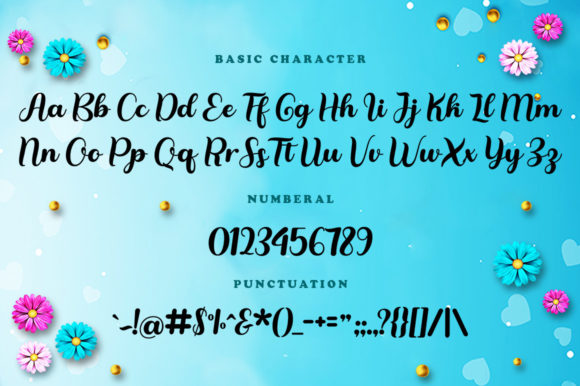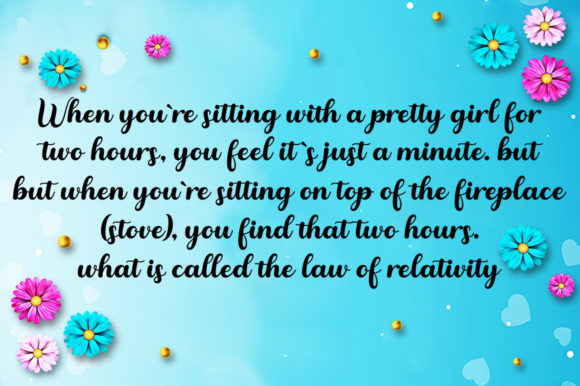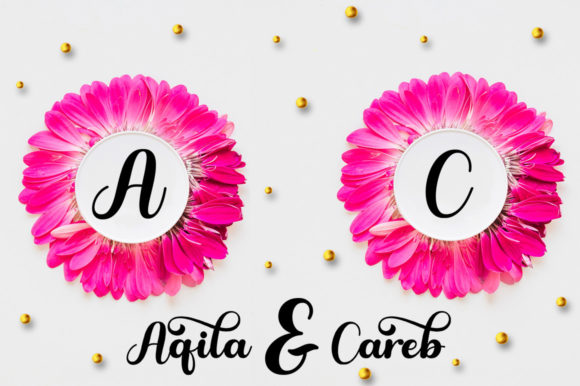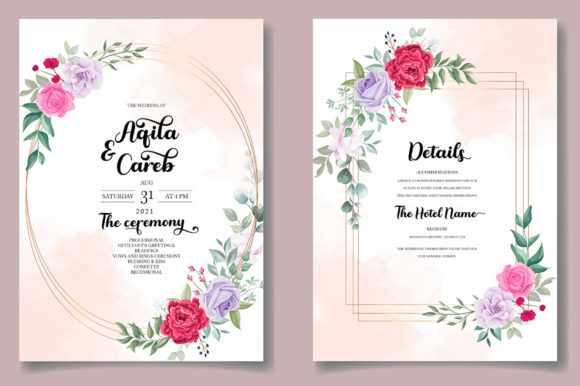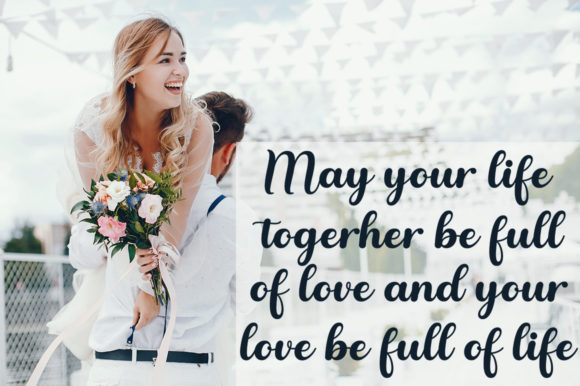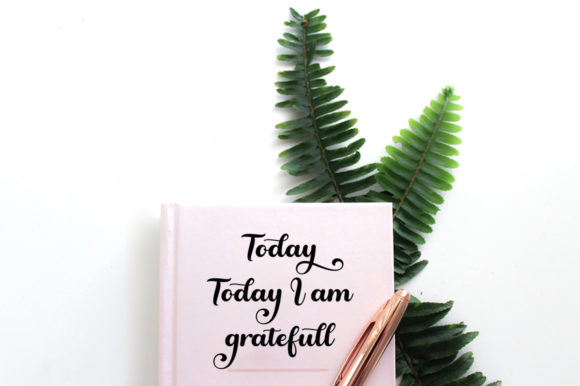
Balyona Font: Elevate Your Design with Luxury and Elegance
Are you a designer or crafter looking for a unique and stunning font to add a touch of luxury to your projects? Look no further than Balyona Font, a beautiful light handwritten font that is sure to make your designs stand out. With its distinctive feel and impressive impact, Balyona Font is the perfect choice for anyone seeking to add a touch of sophistication and elegance to their work.
What Makes Balyona Font So Special?
Balyona Font is a one-of-a-kind font that boasts a range of features that set it apart from other fonts. Here are just a few reasons why Balyona Font is a must-have for designers and crafters:
- Unique and Handwritten: Balyona Font is a light handwritten font that has a personal and human touch. Its unique feel makes it perfect for designs that require a touch of personality and whimsy.
- Luxury and Elegant: With its stunning impact, Balyona Font is the perfect choice for designs that require a touch of luxury and sophistication. Whether you’re working on a branding project, a wedding invitation, or a packaging design, Balyona Font is sure to impress.
- PUA Encoded: Balyona Font is PUA (Private Use Area) encoded, which means that you can access all of the amazing glyphs and ligatures with ease. This makes it easy to create beautiful and intricate designs that are sure to wow.
How to Use Balyona Font in Your Designs
Balyona Font is incredibly versatile and can be used in a wide range of design projects. Here are just a few ideas to get you started:
- Branding and Logos: Use Balyona Font to create a stunning logo or brand identity that is sure to make your business stand out.
- Wedding Invitations and Stationery: Add a touch of luxury and elegance to your wedding invitations and stationery with Balyona Font.
- Packaging Design: Use Balyona Font to create beautiful and eye-catching packaging designs that are sure to impress.
- Digital Designs: Balyona Font can also be used in digital designs, such as social media graphics, blog posts, and email marketing campaigns.
Tips and Tricks for Getting the Most Out of Balyona Font
Here are a few tips and tricks to help you get the most out of Balyona Font:
- Use it in Combination with Other Fonts: Balyona Font pairs well with other fonts, so don’t be afraid to use it in combination with other fonts to create a unique and interesting design.
- Take Advantage of the Glyphs and Ligatures: With Balyona Font being PUA encoded, make sure to take advantage of the amazing glyphs and ligatures to add an extra touch of elegance and sophistication to your design.
In conclusion, Balyona Font is a beautiful and unique light handwritten font that is sure to add a touch of luxury and elegance to any design project. With its stunning impact, PUA encoding, and versatility, Balyona Font is a must-have for designers and crafters looking to take their designs to the next level. So why wait? Download Balyona Font today and start creating stunning designs that are sure to wow!